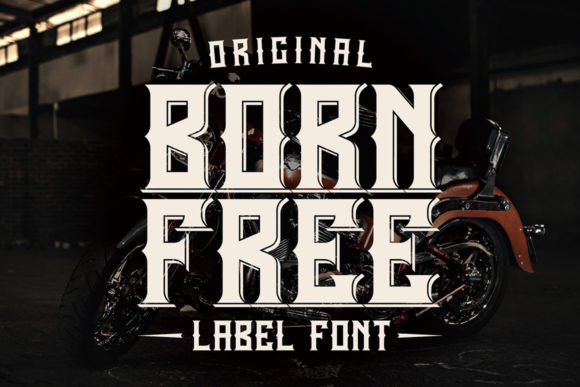
In a digital world awash with uniformity, let your designs radiate uniqueness with Born Free, an assertive display font, brimming with retro charm and untamed spirit. Bold and captivating, Born Free refuses to blend into the background. Unleash its potential on posters, flyers, or any printed medium, and witness the transformation of your designs into masterpieces.
Born Free is a font that breaks free from conventions, defying monotony with its distinct character. Its distinctive letterforms, reminiscent of a bygone era, carry an undeniable charm that will capture attention wherever it appears. Whether you're a seasoned designer or a creative enthusiast, Born Free's versatility will ignite your imagination and open up a world of design possibilities.
Experience the thrill of creating logos that resonate, posters that demand attention, and branding that leaves a lasting impression. Born Free's ability to command attention makes it the perfect choice for those seeking to make a statement.
Immerse yourself in the limitless possibilities that Born Free presents. Its compatibility with various graphic design software ensures a seamless workflow, allowing you to effortlessly integrate it into your creative process. Unleash your inner artist and watch as your designs take on a new life, radiating with individuality and style.
Don't settle for ordinary fonts that fade into oblivion. Embrace the boldness of Born Free and let your designs shine with confidence. Stand out from the crowd and leave an indelible mark on your audience. Try Born Free today and witness the transformative power of a font that dares to be different. Dive into a world of creativity and let your designs soar to new heights.